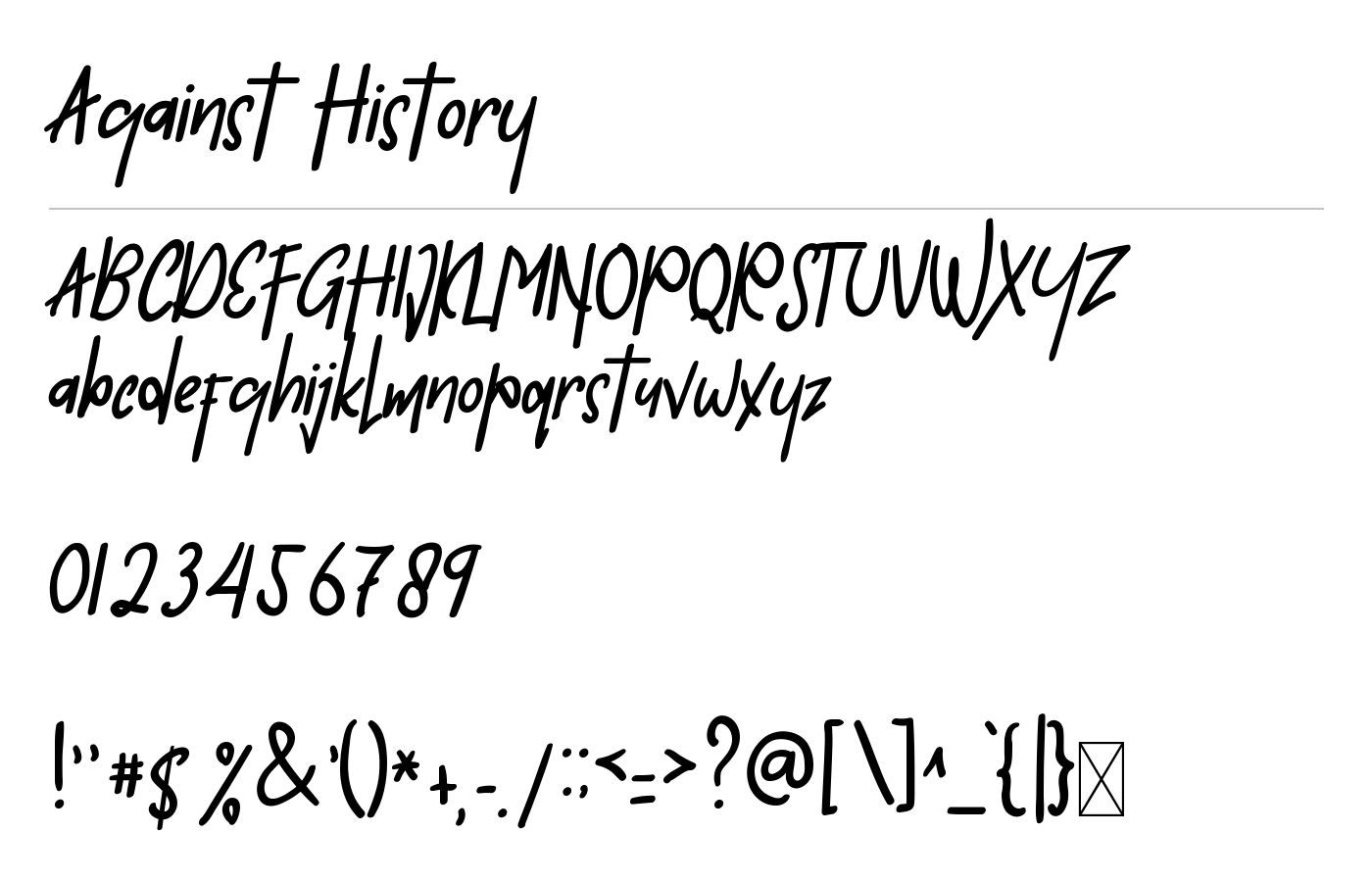
Against History is a lively and expressive handwritten font with tall, narrow letterforms that convey a casual yet energetic vibe. Its thin strokes and slightly uneven lines create a personal, spontaneous feel, ideal for projects that want to appear authentic and approachable. This font suits creative branding, posters, and editorial work where a dynamic, informal touch is desired.
Against History Font
About Against History Font